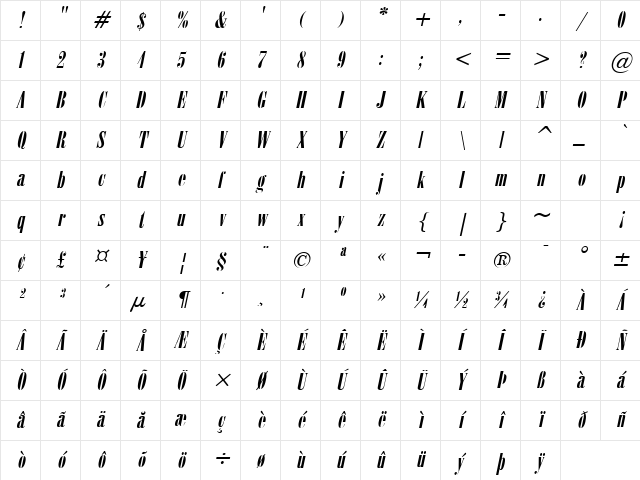
June 15 Italic
June 15 Family
June 15 Italic
Design Context for June 15
June 15 is a composed and adaptable typeface that performs quietly and consistently across a wide range of design contexts. The slanted form adds forward momentum and visual energy.
Pro Tip: Use June 15 for emphasis, pull quotes, and subheadings where its slanted energy can add rhythm to the layout.